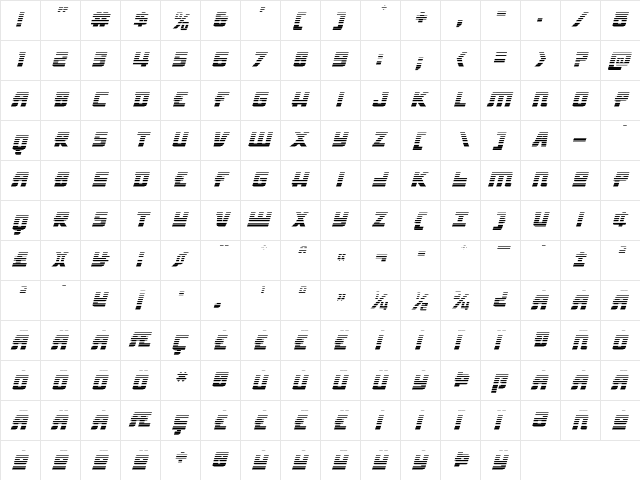
Hong Kong Hustle Gradient Italic Italic
Design Context for Hong Kong Hustle Gradient Italic Typeface
Hong Kong Hustle Gradient Italic is a composed and adaptable typeface that performs quietly and consistently across a wide range of design contexts. The slanted form adds forward momentum and visual energy.
Pro Tip: Use Hong Kong Hustle Gradient Italic for emphasis, pull quotes, and subheadings where its slanted energy can add rhythm to the layout.